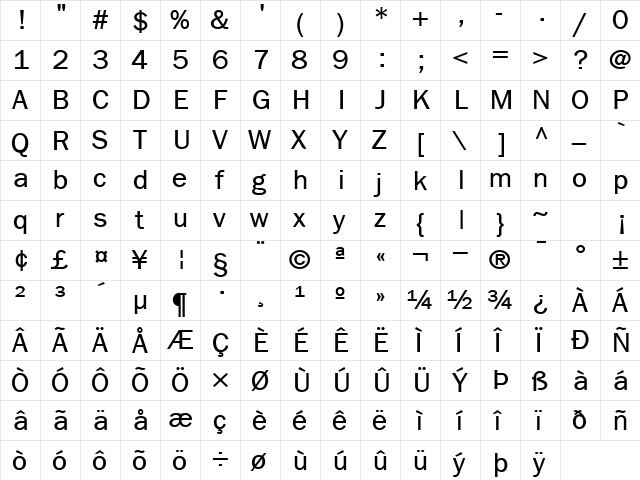
LibraryGothicMedium Regular
Design Context for LibraryGothicMedium Typeface
LibraryGothicMedium takes a clean, functional approach — its unadorned letterforms prioritise legibility and work reliably across screen and print environments.
Font Pairing: Works well alongside a characterful serif or display font that can carry the expressive load while LibraryGothicMedium handles the functional copy.
Pro Tip: Pair LibraryGothicMedium with a display or serif font for headlines — its neutral character makes it an excellent supporting player in complex typographic systems.